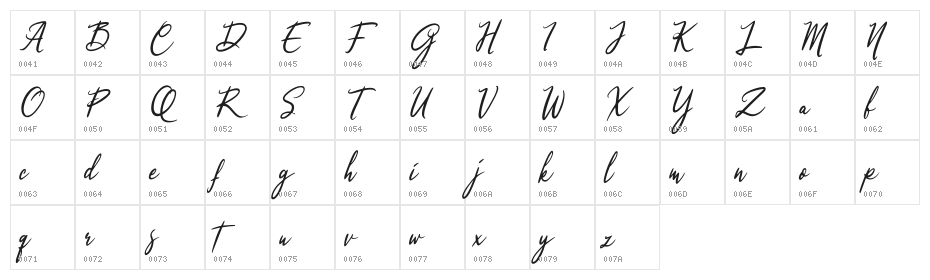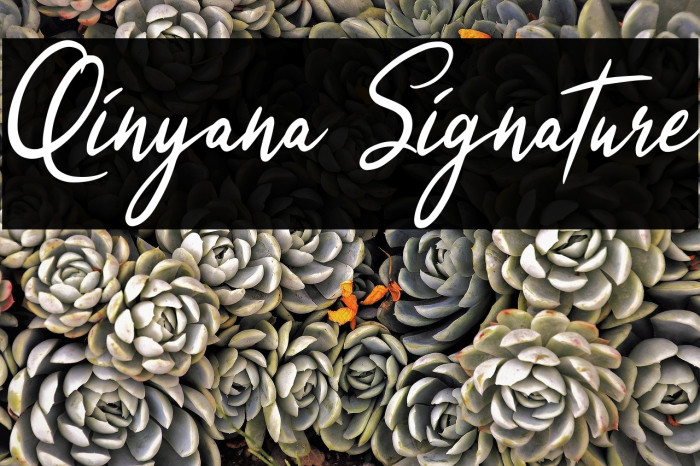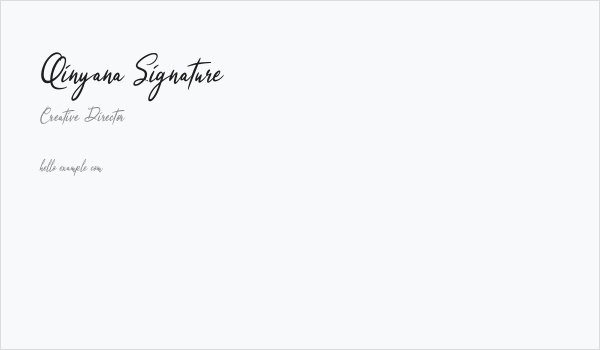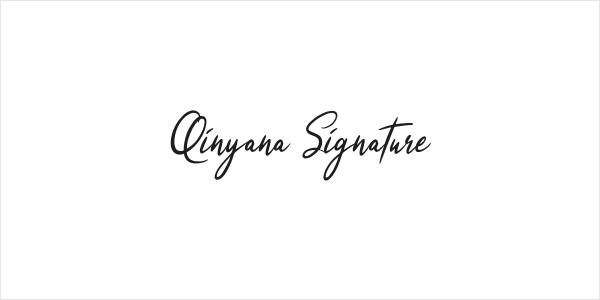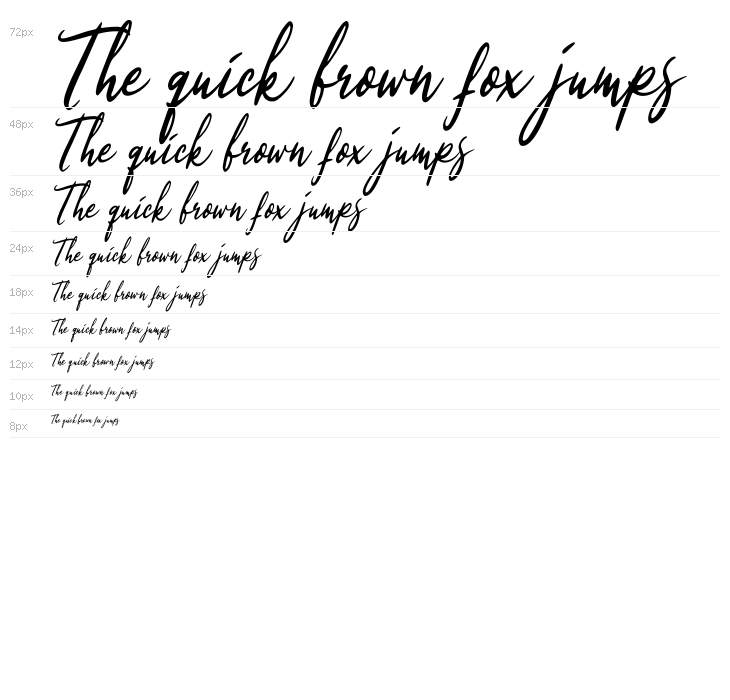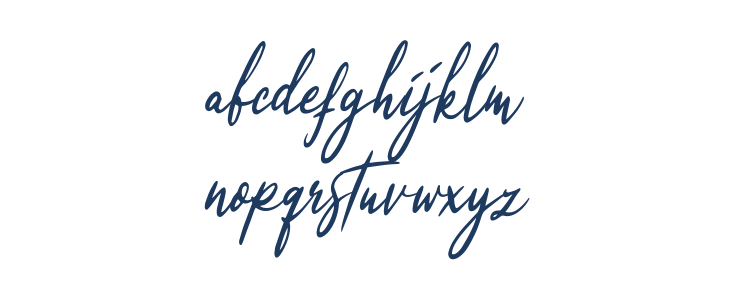
Qinyana Signature Font
Qinyana Signature Description
This font exudes elegance and sophistication with its fluid, cursive style. The characters are intricately designed with smooth, flowing lines that mimic the natural motion of handwriting. Each letter is distinct yet harmoniously connected, creating a seamless and graceful appearance. The uppercase letters are bold and prominent, while the lowercase letters maintain a delicate and refined look. The overall aesthetic is both classic and modern, making it versatile for various design needs. The font's artistic flair is perfect for adding a personal touch to any project.
| Overall Style | Elegant, Modern |
| Proposed Projects | Ideal for wedding invitations, branding, signature logos, and elegant stationery. |